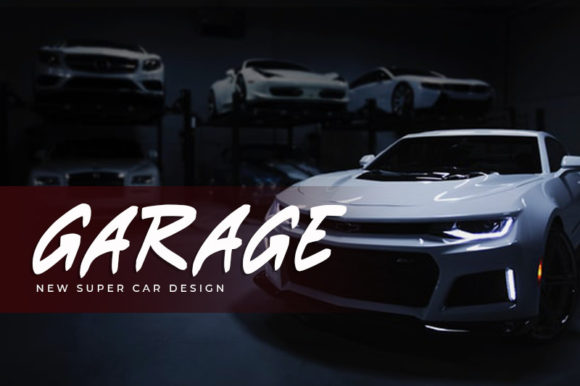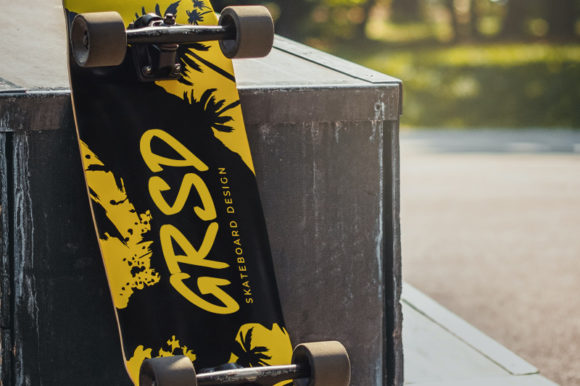
Unlocking the Power of Mosangen Font
Do you remember that moment when you finally found the perfect font for your creative project? The one that takes your design from ordinary to extraordinary? For designers, discovering a font that elevates their work to the next level is a game-changer. And, for many, that font is the Mosangen Font.
With its sleek, modern design and playful letters, the Mosangen Font is an invaluable resource for designers looking to add a touch of urban chic to their designs. Whether you’re working on a branding project, a social media campaign, or a web design, this font is sure to bring your creative vision to life.
Mosangen Font Key Features
- High-quality design resource suitable for various creative projects, including digital art, graphic design, and typography.
- Features a transparent background, allowing for seamless integration with other design elements and a clean, minimalist aesthetic.
- Includes a wide range of characters, including uppercase and lowercase letters, numbers, and punctuation marks, making it a versatile font for various applications.
- Designed with a modern and sleek appearance, the Mosangen Font is ideal for projects that require a contemporary and sophisticated look.
- Available in a single weight, making it easy to use and customize for various design projects, from business cards to posters and brochures.
Honest Review: Mosangen Font
I recently had the chance to work with the Mosangen Font in a creative project, and I must say, I was quite impressed. As a design resource, it offers a unique blend of style and versatility that can elevate any design.
What works well about the Mosangen Font is its high-quality design and wide range of applications. From headers to body text, it’s perfect for a variety of creative projects. The font also comes with a transparent background, making it easy to use in different design contexts.
- ✨ Wide range of applications from headers to body text
- ✨ Transparent background for easy use in different design contexts
Overall, I think the Mosangen Font is a great addition to any designer’s toolkit. Its unique style and versatility make it a great choice for creative projects, and the high-quality design is a major plus. While there are some limitations, I think the benefits far outweigh the drawbacks.
Tips for Getting the Most Out of Mosangen Font
Mosangen Font is a high-quality design resource that can be used for a variety of creative projects. To get the most out of it, use it in conjunction with other design elements such as images and graphics. You can also experiment with different font sizes and styles to create a unique look.
Mosangen Font is commonly used in designs that require a clean and modern look. It is particularly useful for logos, business cards, and other marketing materials. You can also use it in presentations, reports, and other documents where a clear and readable font is needed.